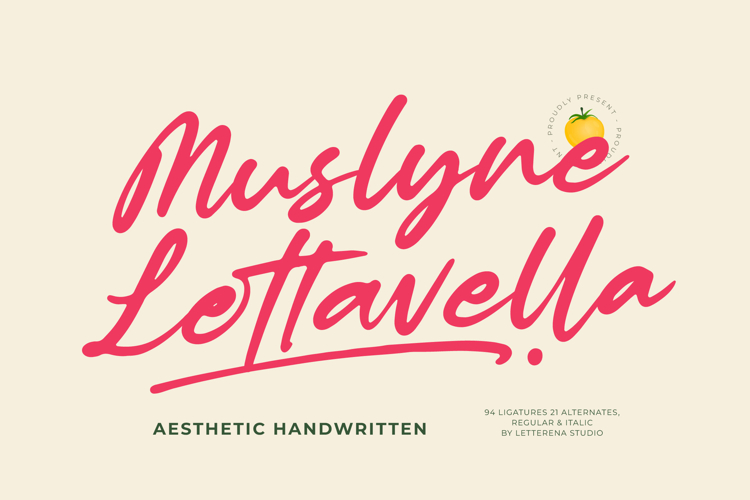
Muslyne Lettavella Aesthetic Handwritten Font
Muslyne Lettavella - Aesthetic Handwritten Font , from Letterena, is a Luxury Script font, suitable for any projects such as: logos, branding projects, homeware designs, product packaging, mugs, quotes, posters, shopping bags, t-shirts, book covers, name card, invitation cards, greeting cards, label, photography, watermark, special events, and all your other luxury and beautiful projects that need a Luxury Script taste.
94 Ligature 21 Alternate & Swashes